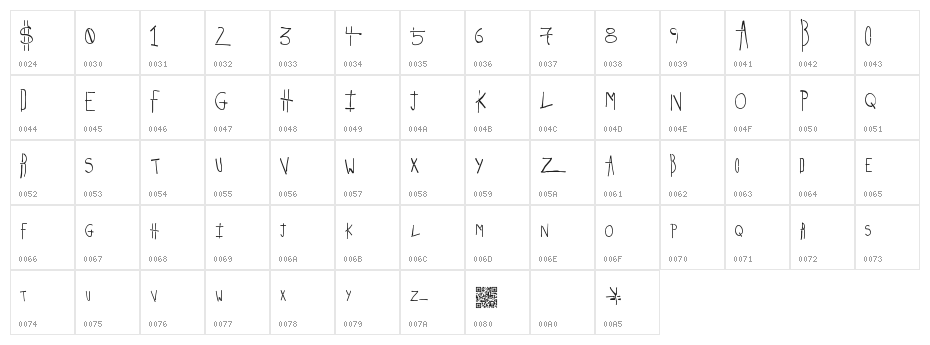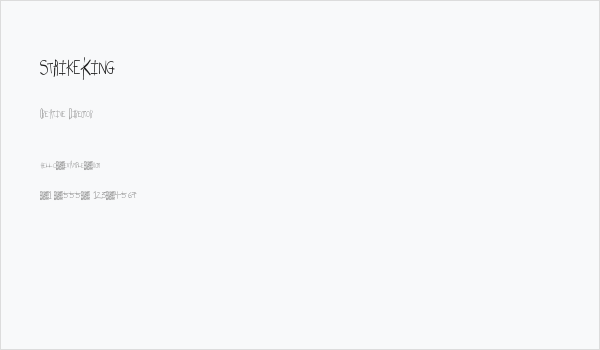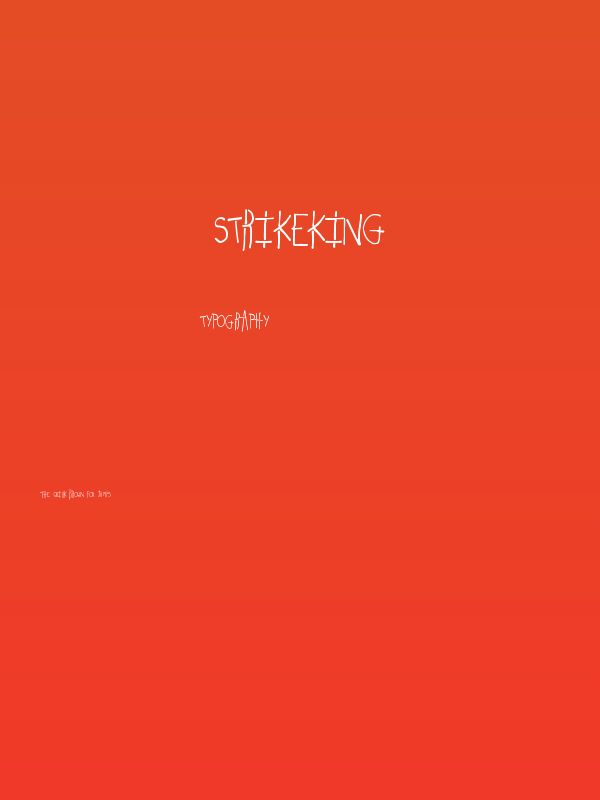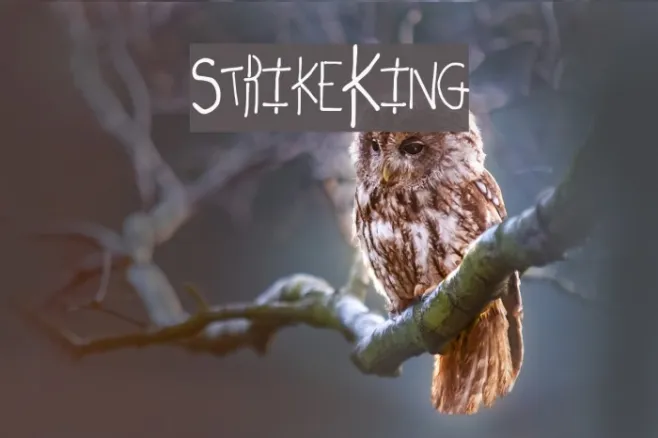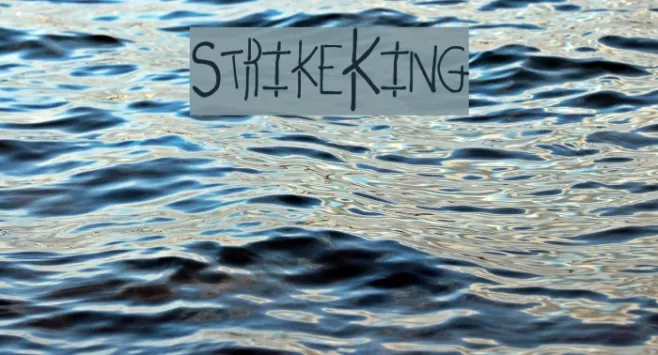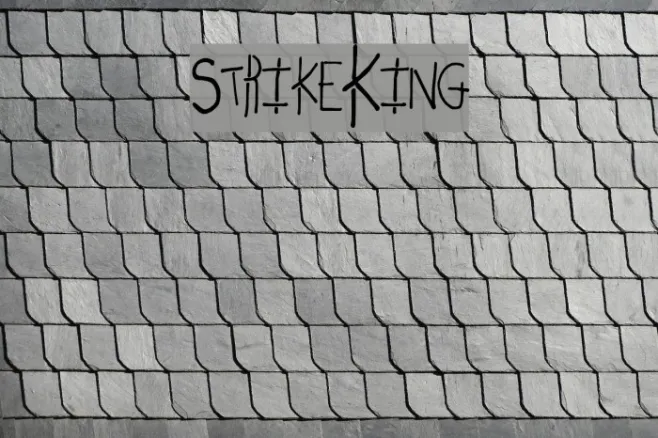
StrikeKing Font
StrikeKing Description
This font exhibits a unique, hand-drawn style with elongated and slightly irregular letterforms, giving it a playful and artistic appearance. The uppercase letters are tall and narrow, with some characters featuring distinctive embellishments, such as the crossbars on the 'A' and 'H'. The lowercase letters maintain a similar aesthetic, with a consistent stroke width that adds to the font's cohesive look. Numbers are similarly styled, with a quirky, informal feel. The special characters, including symbols like $, ?, and &, are designed to match the overall whimsical style of the font. This font's distinctive personality makes it suitable for creative and informal applications.
| Use Case | Headlines, Logos, Artistic projects |
| Proposed Projects | Ideal for creative projects such as children's book illustrations, artistic posters, and informal branding. |